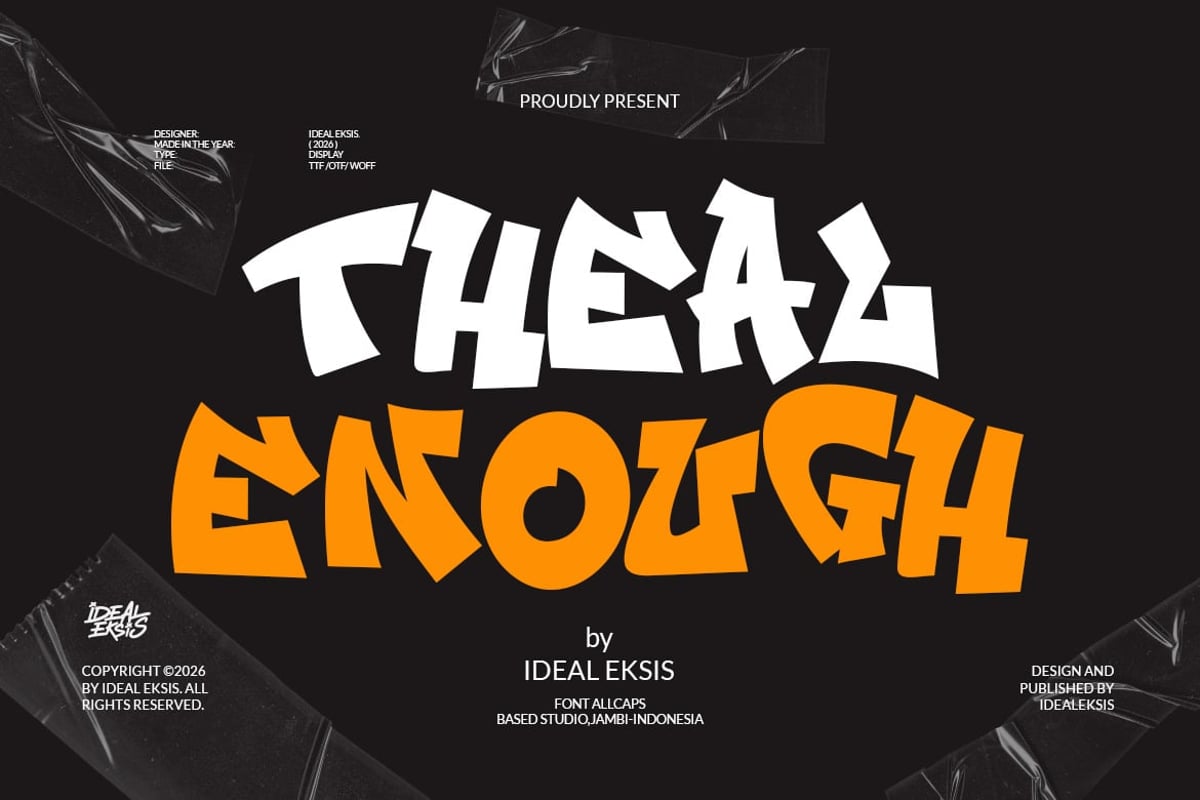
Theal Enough - Bold Graffiti Font
Make a bold statement with this heavy, blocky graffiti font that brings raw street energy to your designs. This typeface features thick and irregular strokes that capture the authentic spirit of street-level graffiti art. The heavy letterforms create a sense of raw energy and urban authenticity that's perfect for projects demanding a bold, edgy aesthetic. In Package: OTF TTF WOFF WOFF2 Features: Uppercase Lowercase Numerals Punctuation Easy To Install